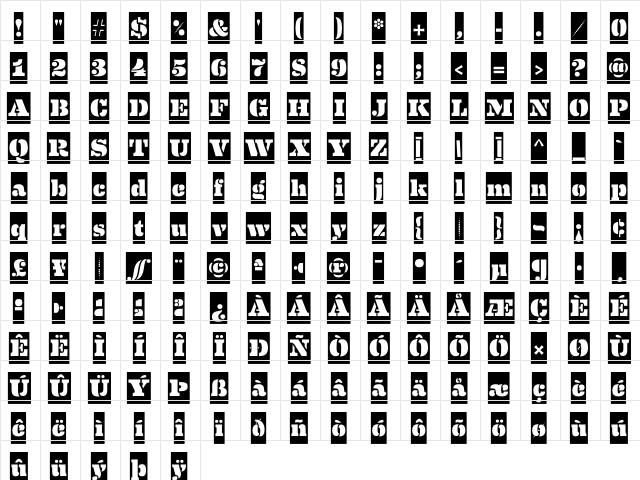
Eames Century Modern Sten Cam Regular
| Foundry | House Industries |
| Designer | Erik van Blokland |
Design Context for Eames Century Modern Sten Cam Typeface
Eames Century Modern Sten Cam is a composed and adaptable typeface that performs quietly and consistently across a wide range of design contexts.